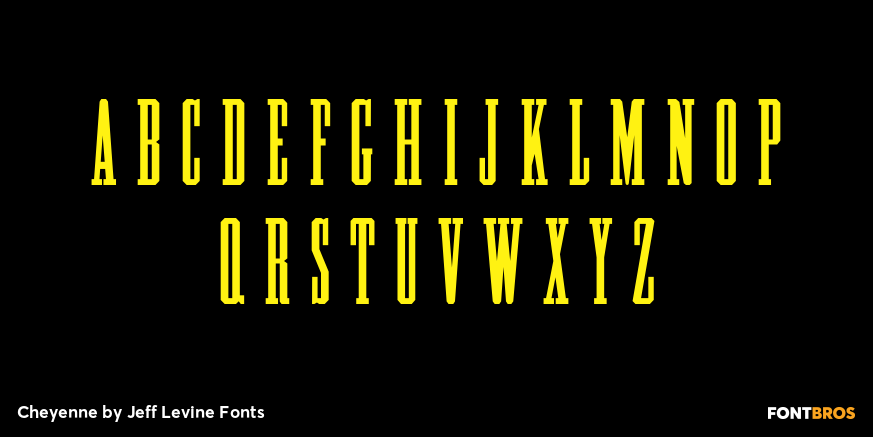
Cheyenne
Cheyenne JNL is a classic slab serif wood type with chamfered corners. Its tall, condensed design is perfect for short headlines that emulate the Old West and similar nostalgic themes.
Cheyenne JNL Regular by Jeff Levine Fonts